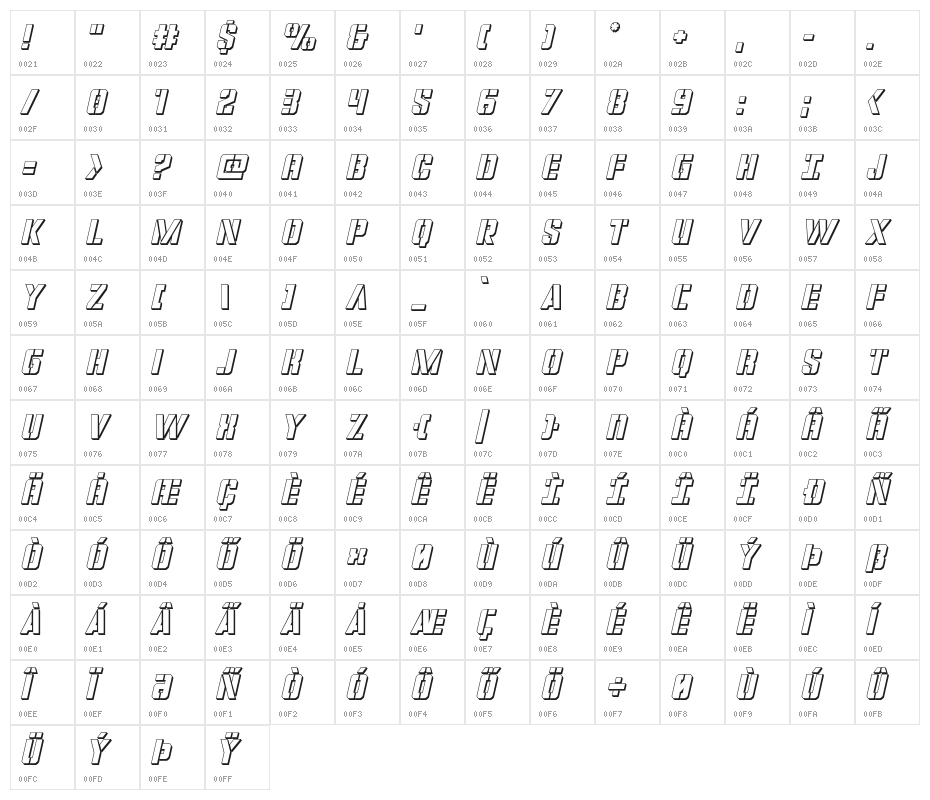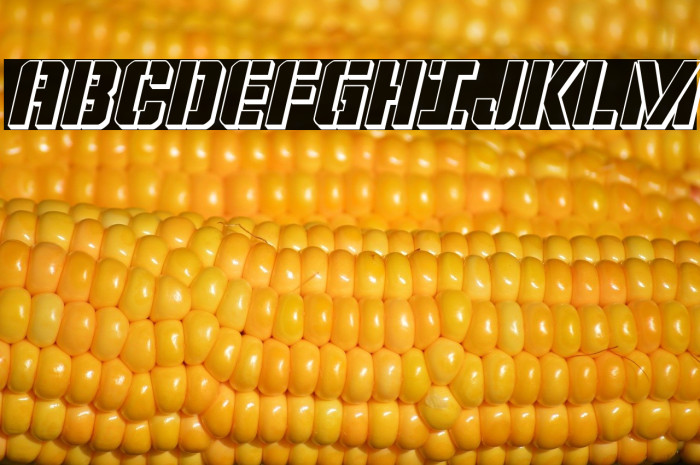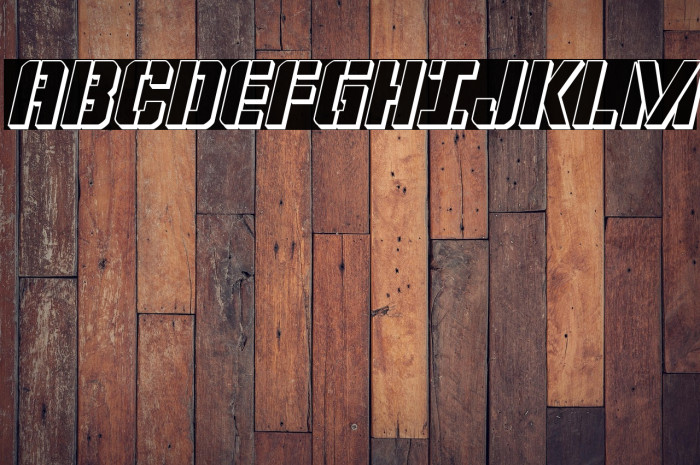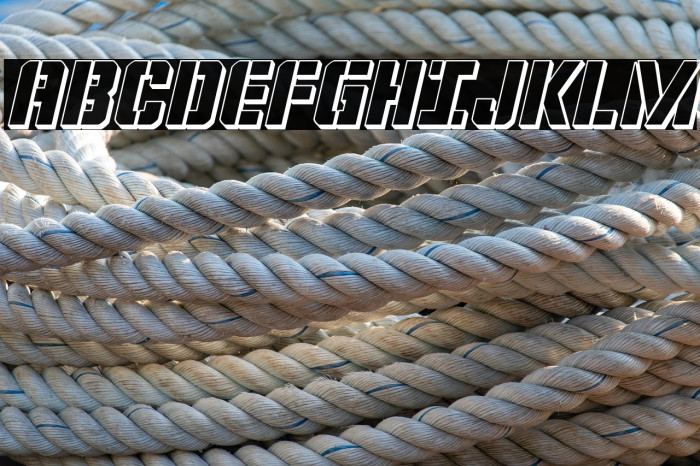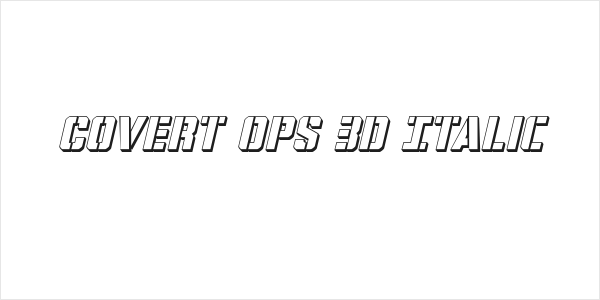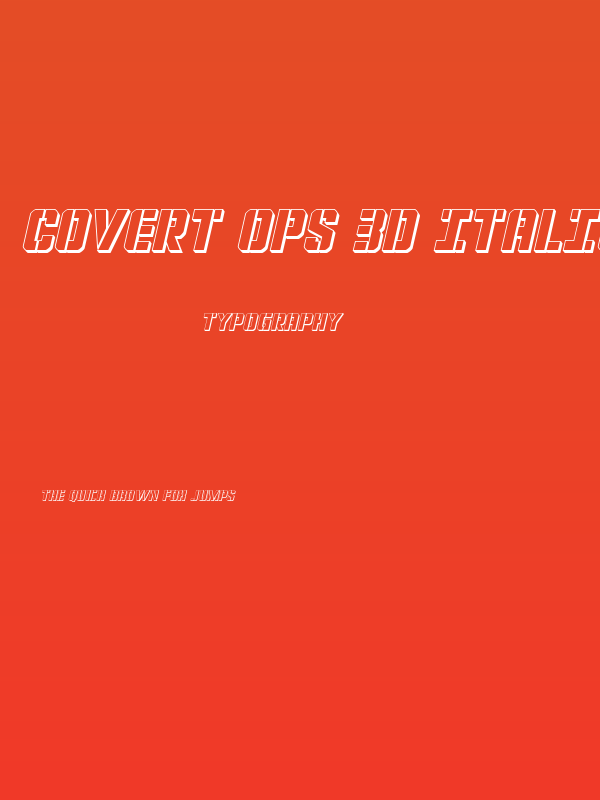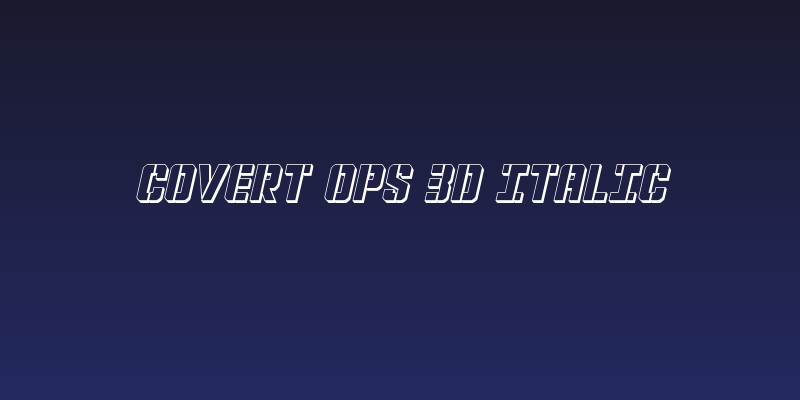
Covert Ops 3D Italic Font
Covert Ops 3D Italic Description
This font features a bold, three-dimensional design with a distinct italic slant, giving it a dynamic and futuristic appearance. The characters are outlined, creating a shadow effect that enhances the 3D illusion. The uppercase letters are prominent and angular, while the numbers and special characters maintain the same bold and structured style. The overall look is modern and eye-catching, suitable for projects that require a strong visual impact.
Proposed ProjectsIdeal for video game titles, movie posters, or any design project that needs a bold, futuristic look.